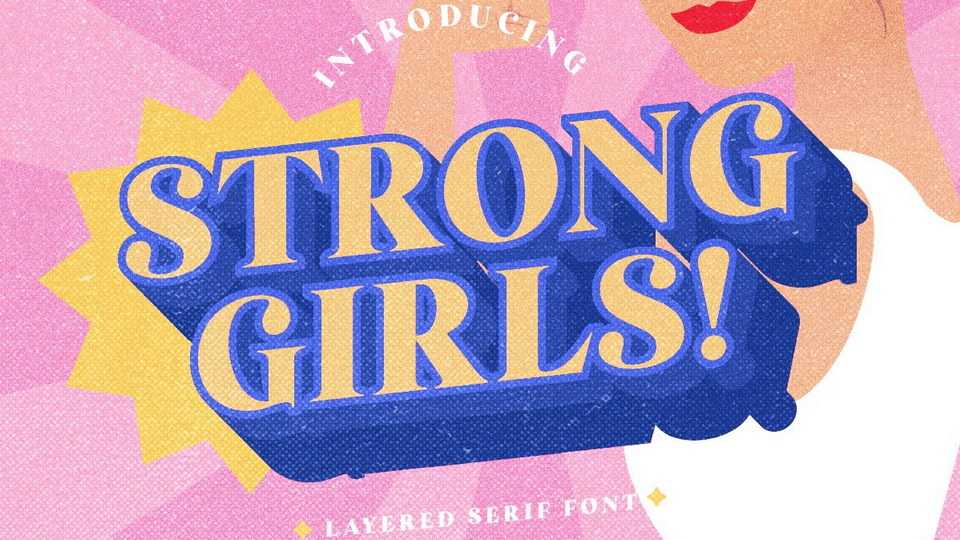
Download Strong Girls font, a bold, retro looking and fun serif typeface. You can use Strong Girls font for any purpose like poster, sticker, vintage design, or anything.